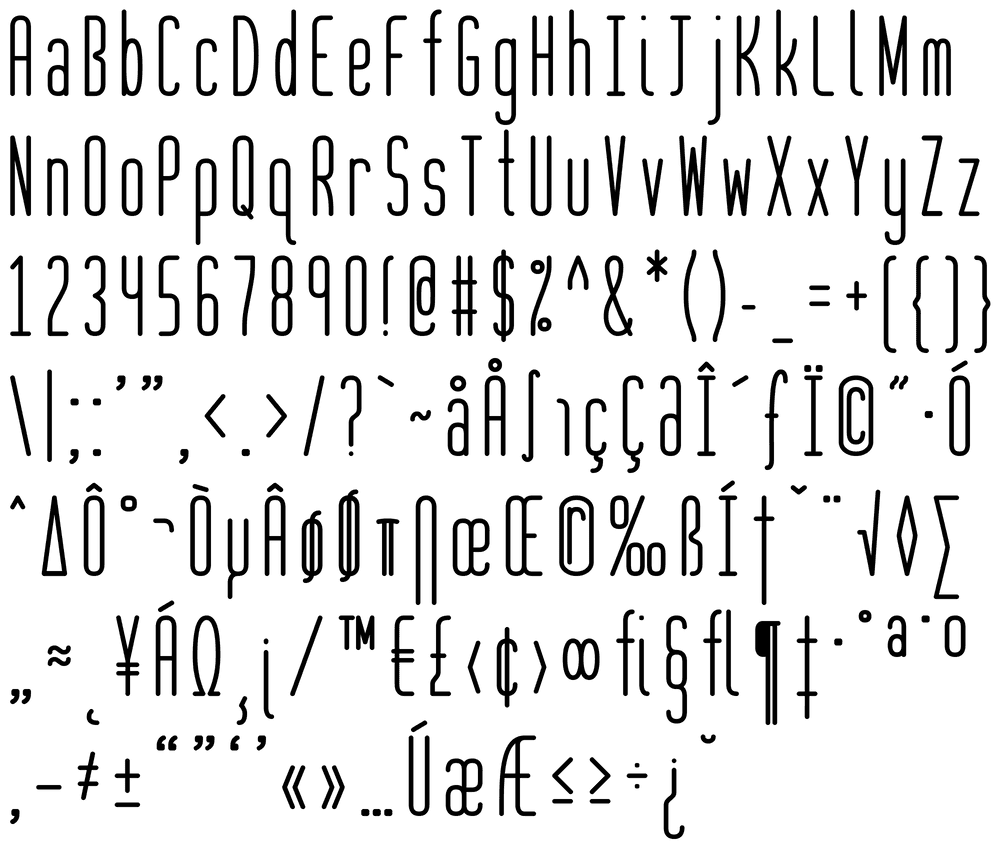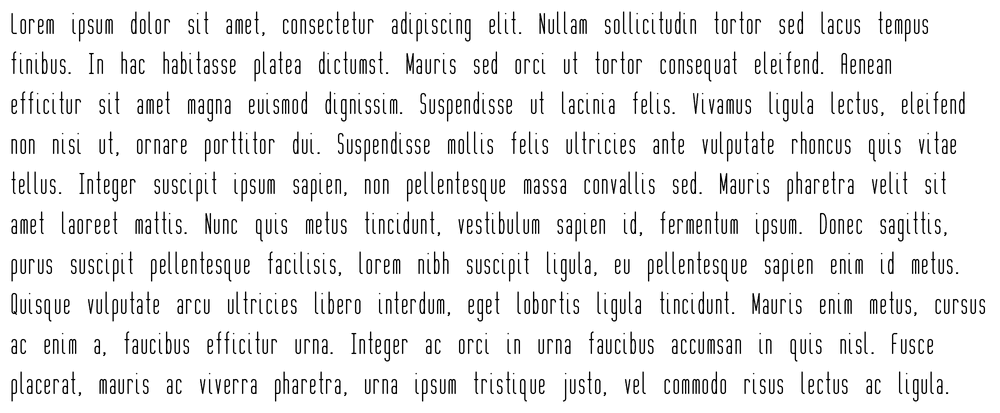
Well-Rounded Font
The Well-Rounded font is my most comprehensive custom font to date. This thin and narrow font includes a full MacOS Roman character set and features a balanced rounded look.